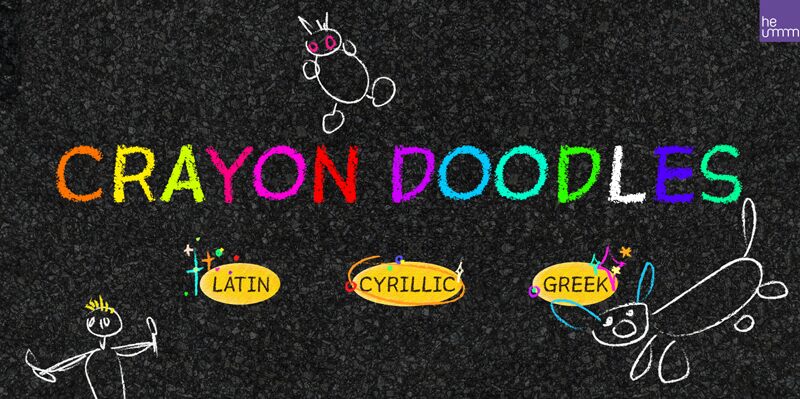
HU Crayon Doodles is a cute handwritten typeface that can be used to express any lively or active moment.
The alphabets are not aligned or evenly written but are crooked like scribble, which gives you funny and informal vibe.
There is 1 weights of HU Crayon Doodles : light